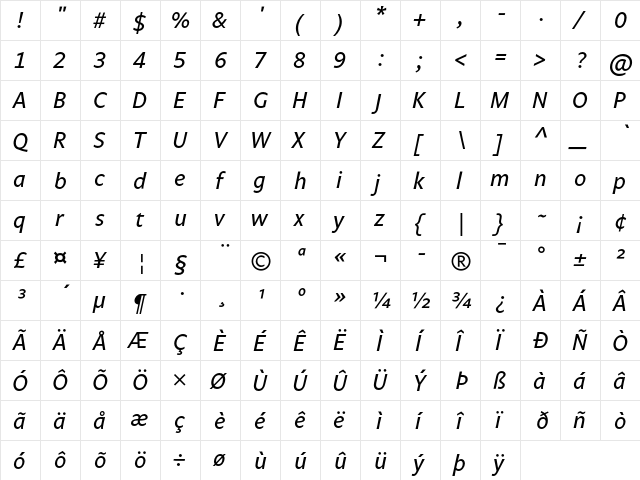
Legato TF Regular Italic
Design Context for Legato Typeface
Legato takes a measured approach to typography — its balanced proportions and neutral character make it a reliable workhorse for both digital and print work. Its italic angle brings a sense of urgency and motion to the letterforms.
Pro Tip: Try Legato for annotation and caption copy alongside an upright companion — the contrast in angle creates a dynamic but ordered typographic system.